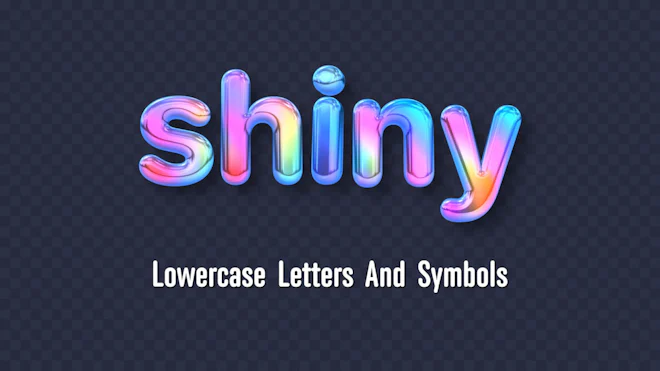
This stock motion graphics video pack includes 38 clips of iridescent shiny lowercase letters and symbols on a transparent alpha channel in a seamless loop.